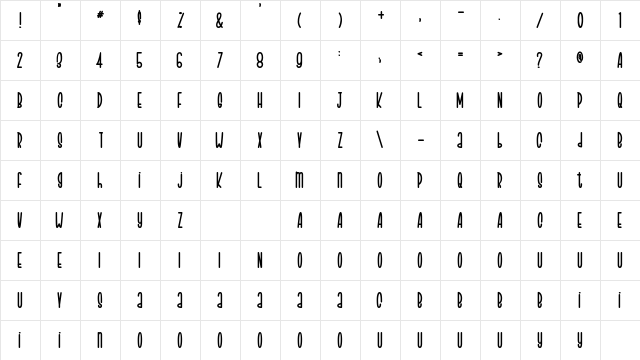
Crosaline Hulok Regular Font Preview
Crosaline Hulok Regular
Crosaline Hulok Regular Font Details
| Foundry | Kotak Kuning Studio |
Design Context for Crosaline Hulok Typeface
Crosaline Hulok takes a measured approach to typography — its balanced proportions and neutral character make it a reliable workhorse for both digital and print work.
Pro Tip: Use Crosaline Hulok in both headline and body roles to test its range before committing to a single application.